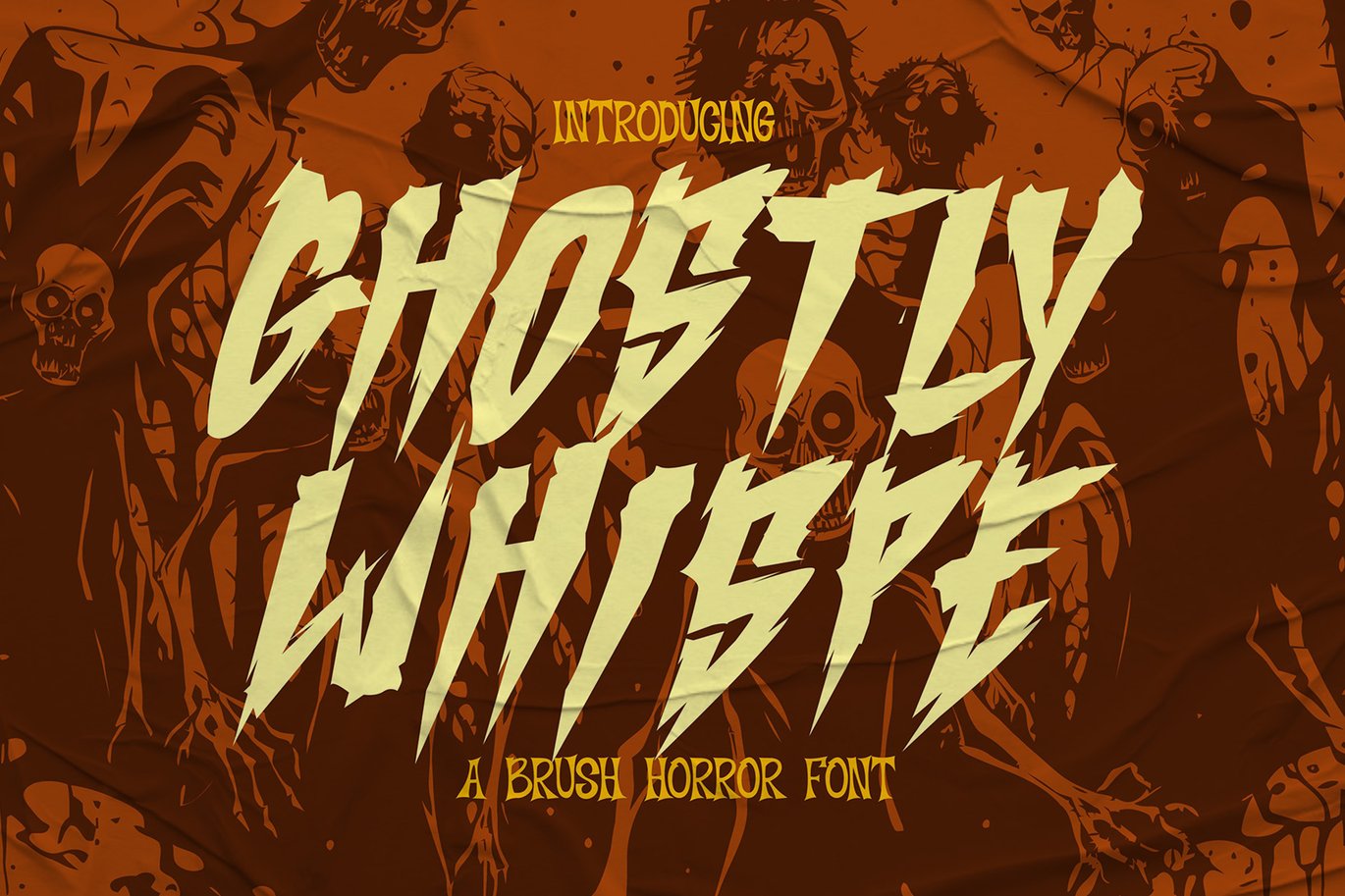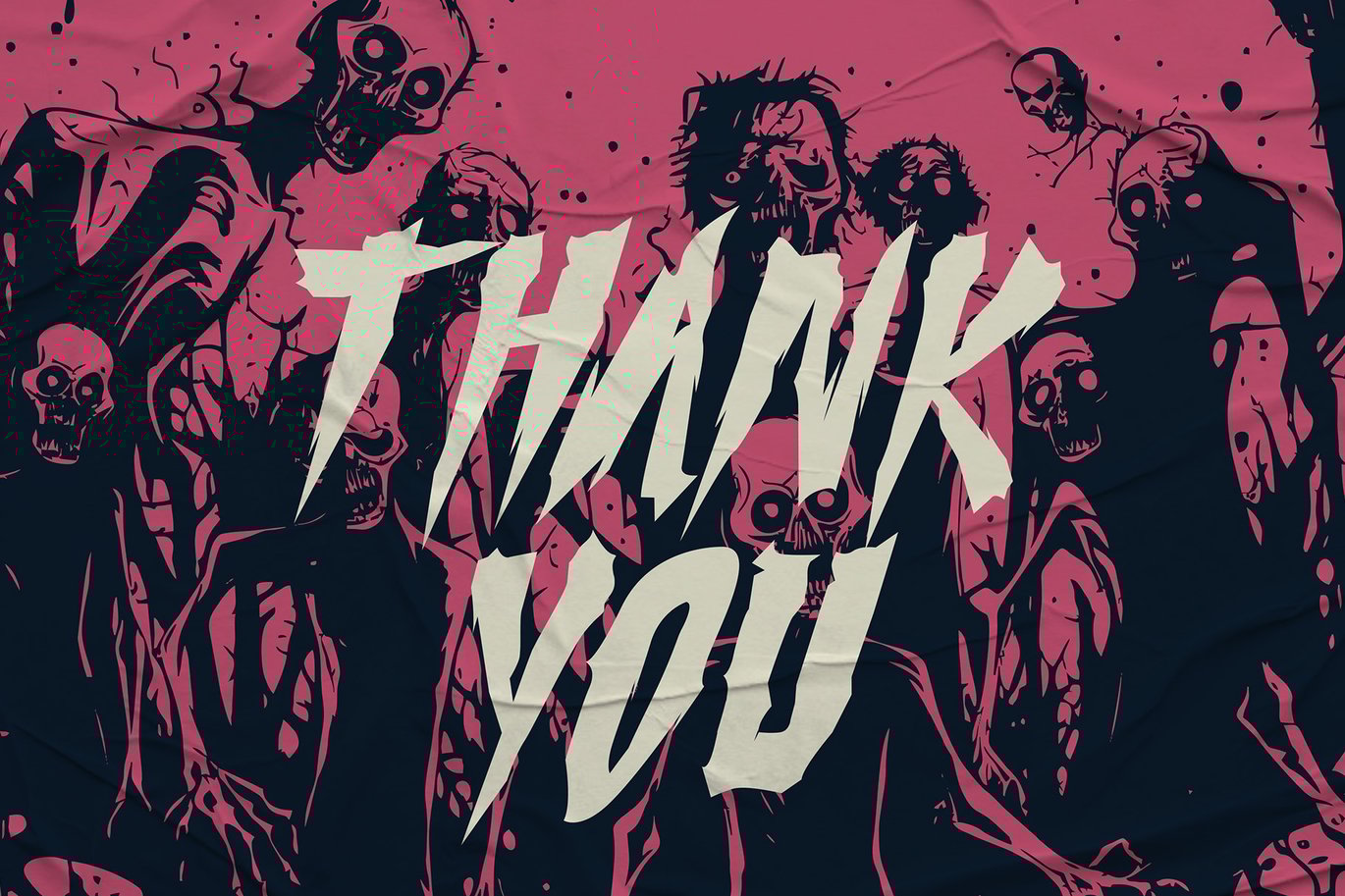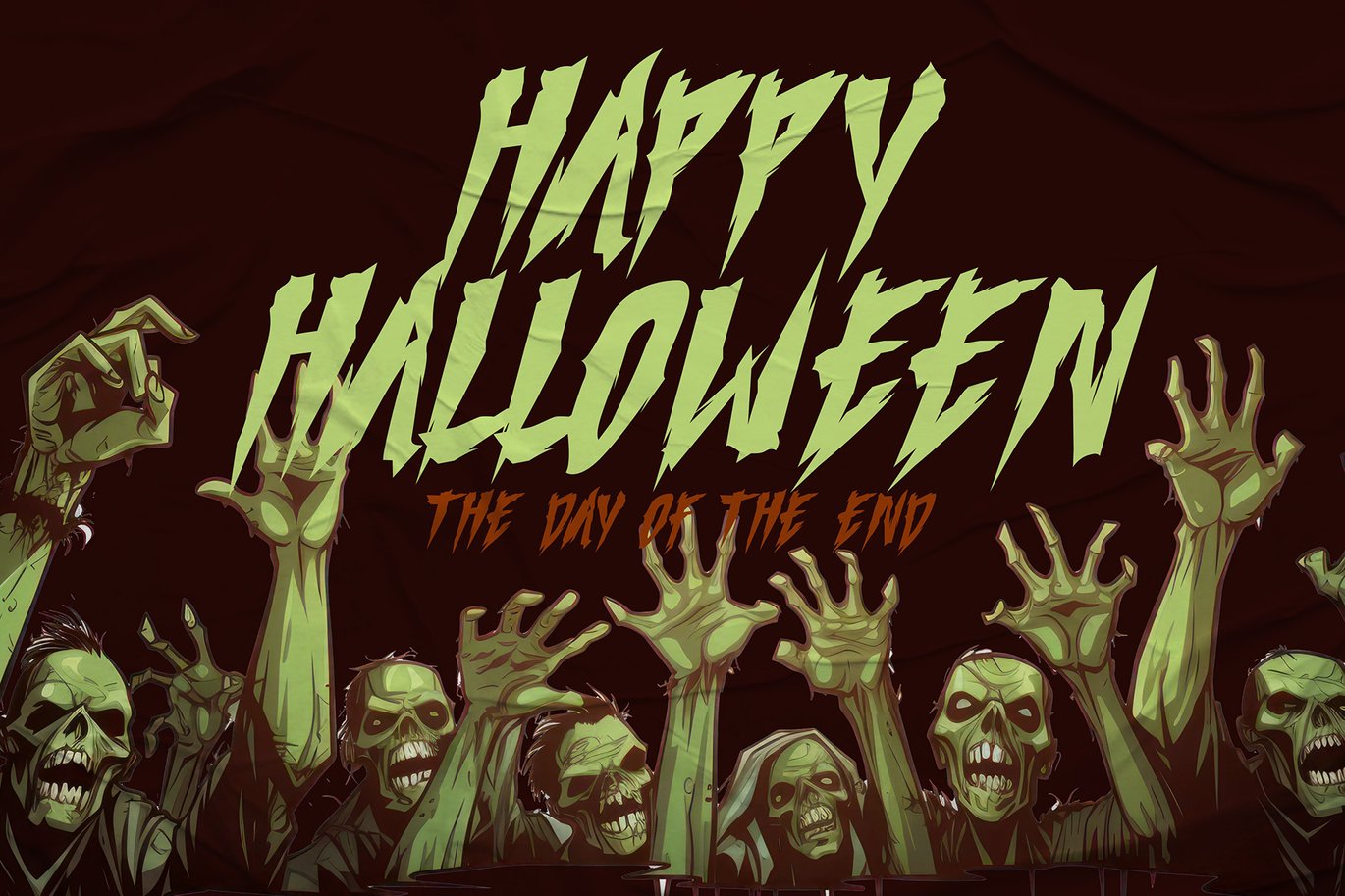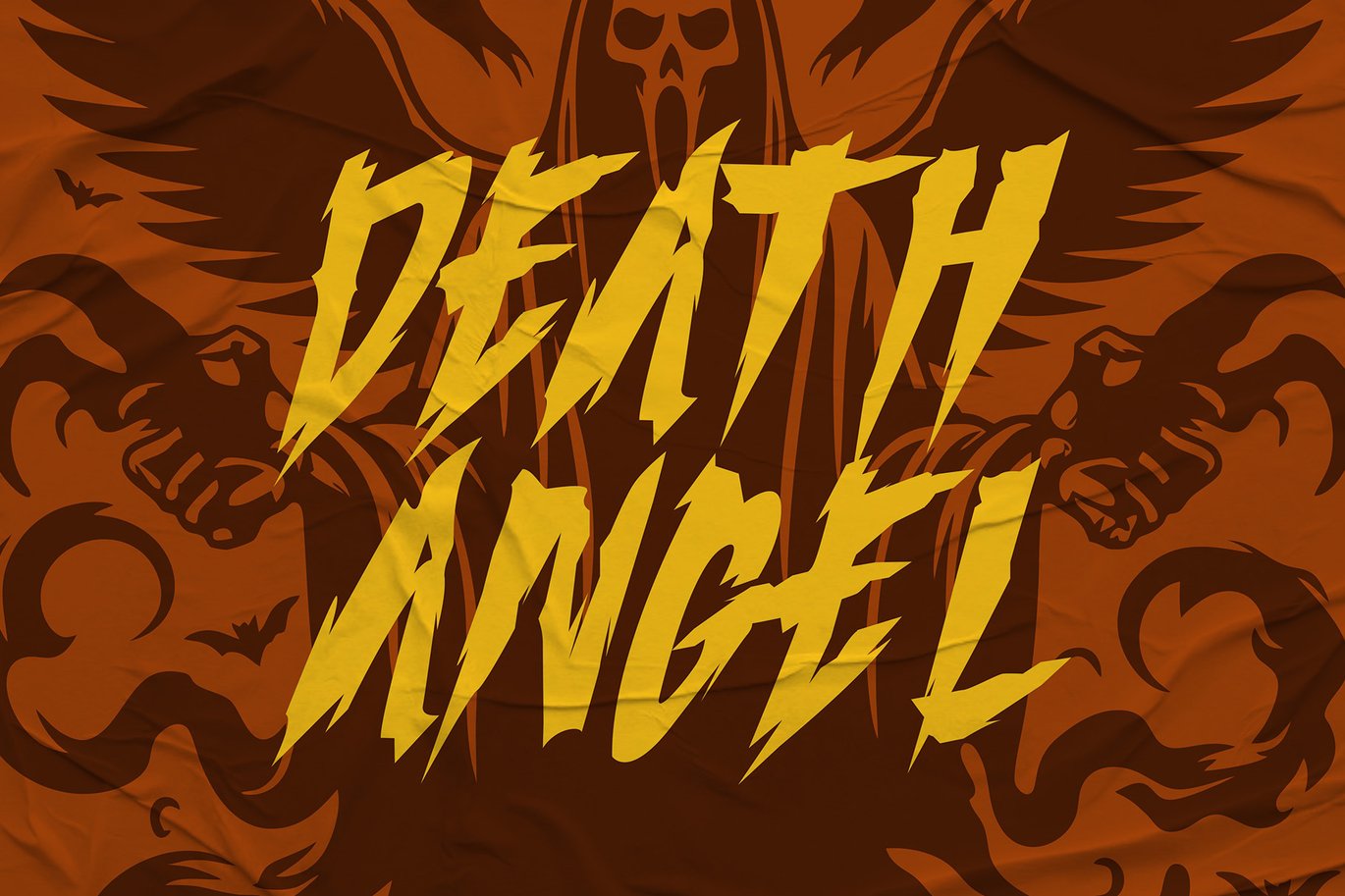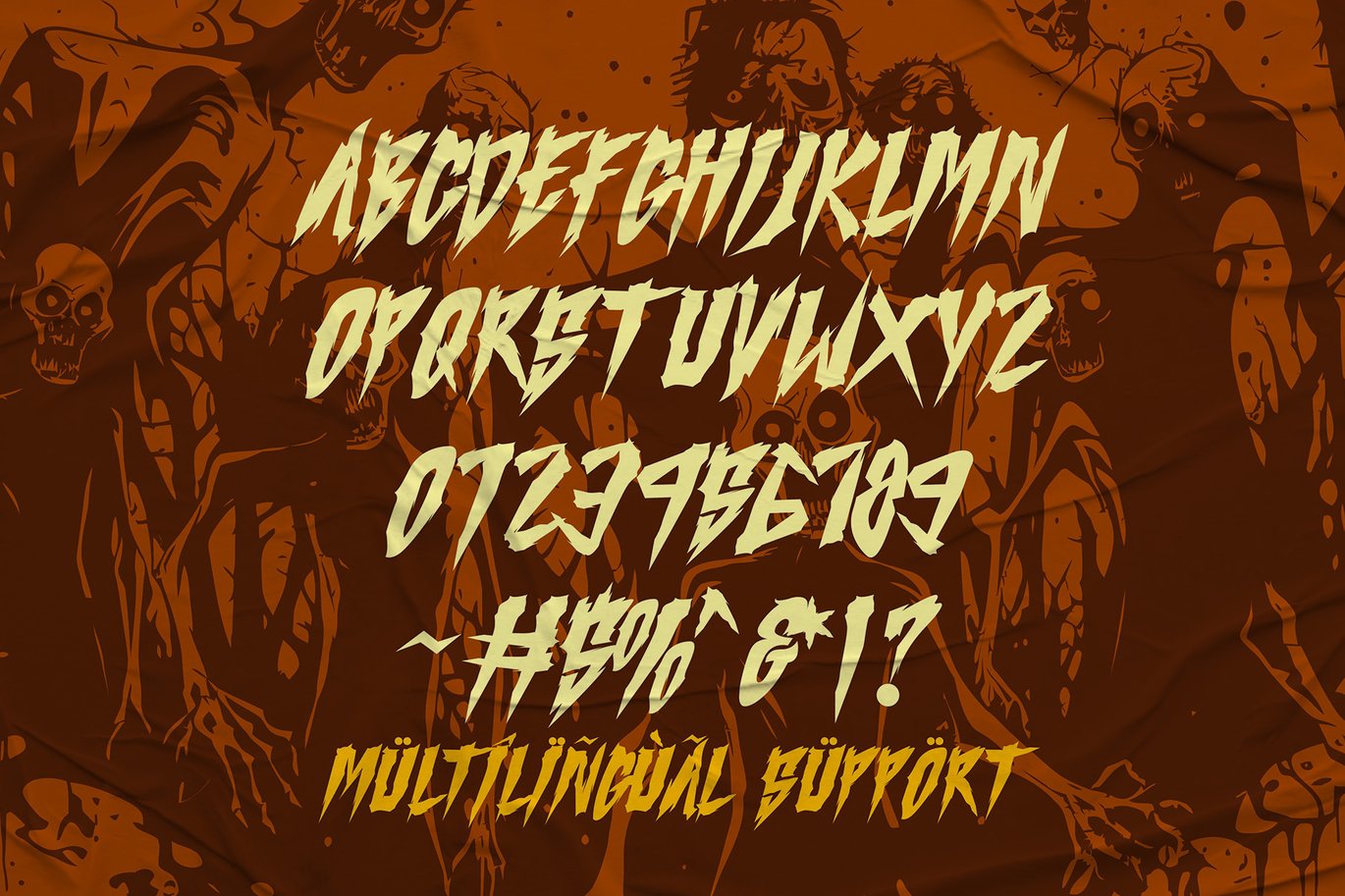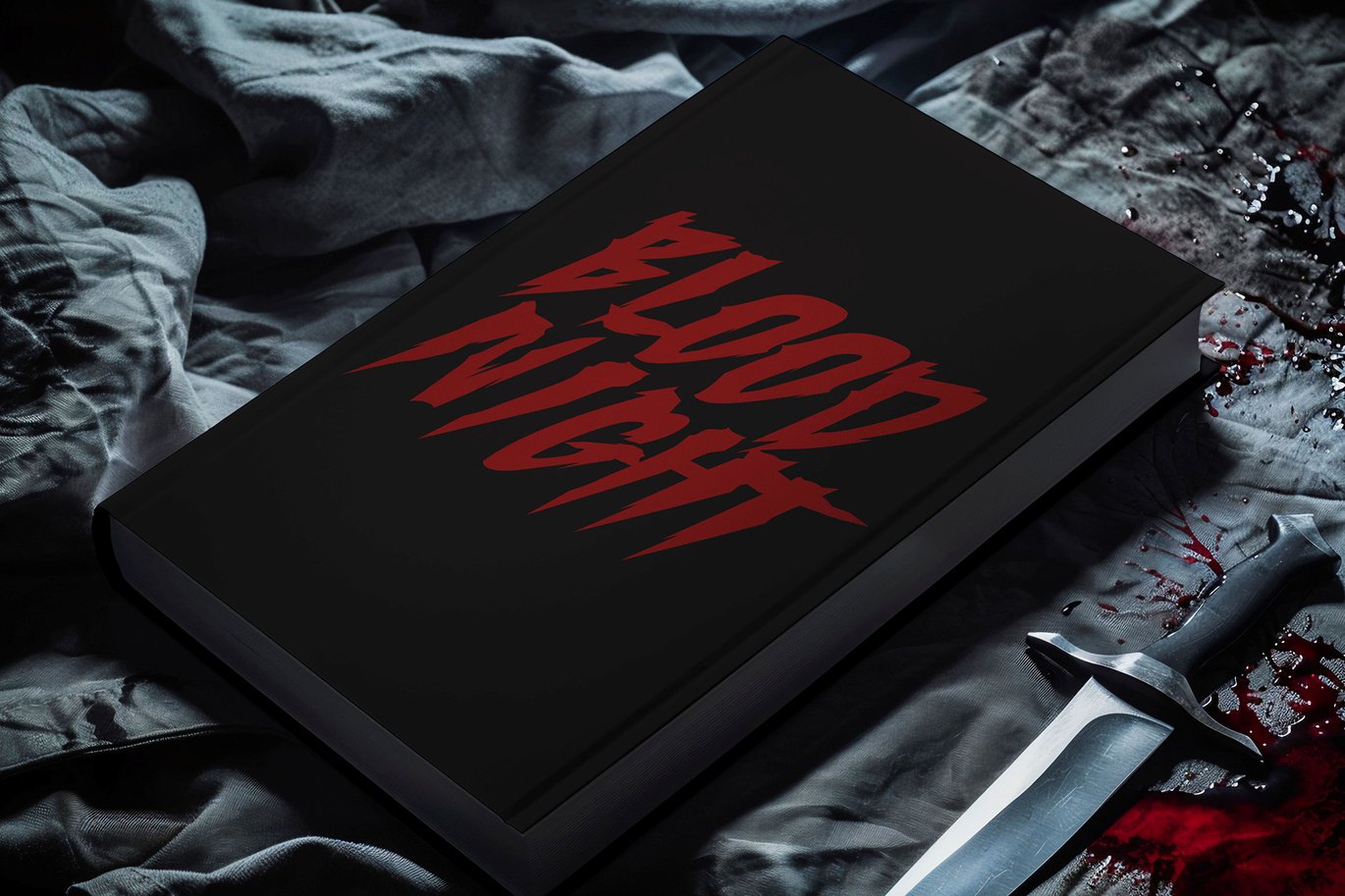
Ghostly Whispe – A Brush Horror Font
Ghostly Whispe is a chilling brush horror font that evokes a sense of eerie mystery and suspense. With its haunting brush strokes and unsettling design, this font is the perfect choice for any horror or Halloween-themed project. Whether you’re creating spooky invitations, bone-chilling posters, or terrifying social media graphics, Ghostly Whispe adds a spine-tingling atmosphere to your designs. Its raw, hand-drawn appearance mimics the look of a spectral whisper in the dark, making it an ideal choice for capturing the essence of fear and the supernatural in your work.